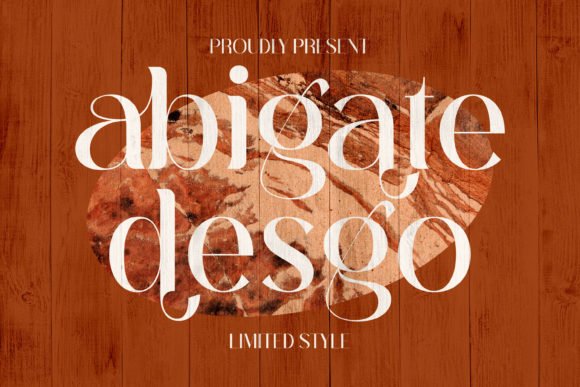
Introduction to Abigate Desgo Font
Abigate Desgo is a trendy, elegant and stylish serif font.
It maintains its classy calligraphic influences while feeling contemporary and fresh Add it confidently to your favorite creations and let yourself be amazed by the outcome generated.
Key Features of Abigate Desgo Font